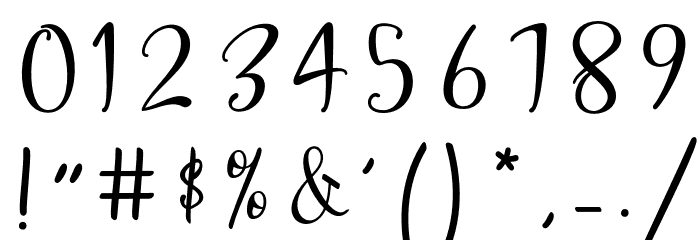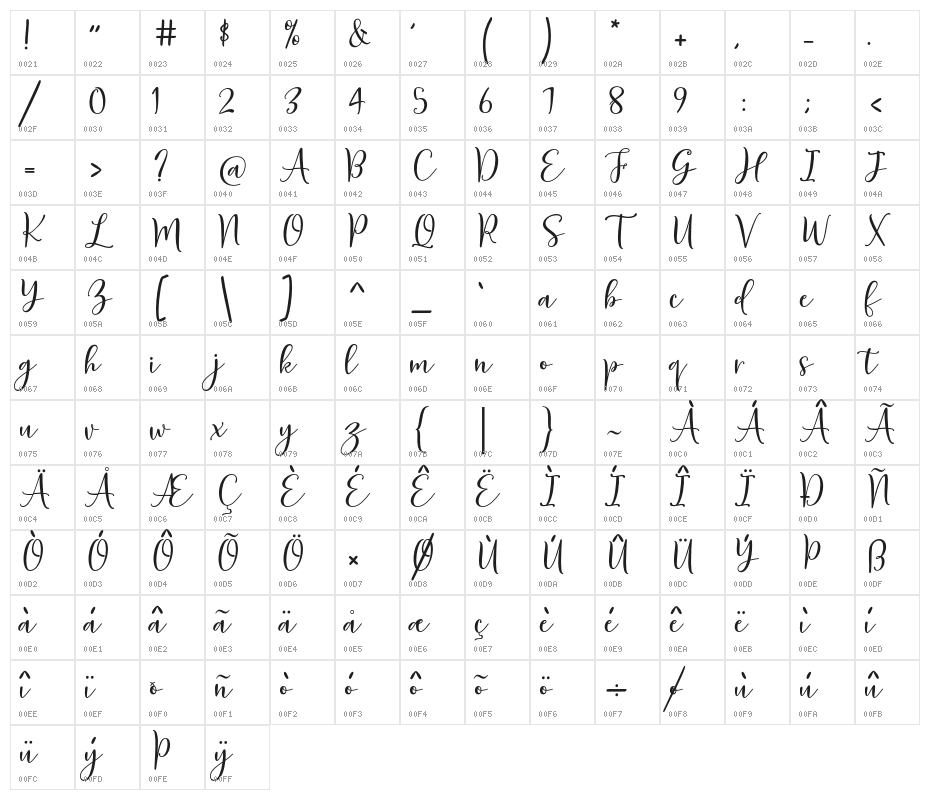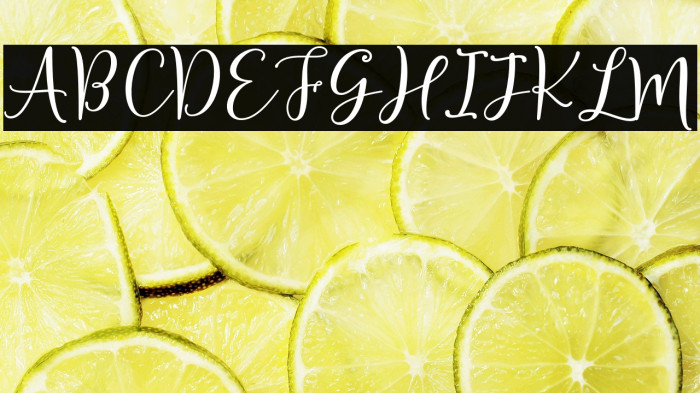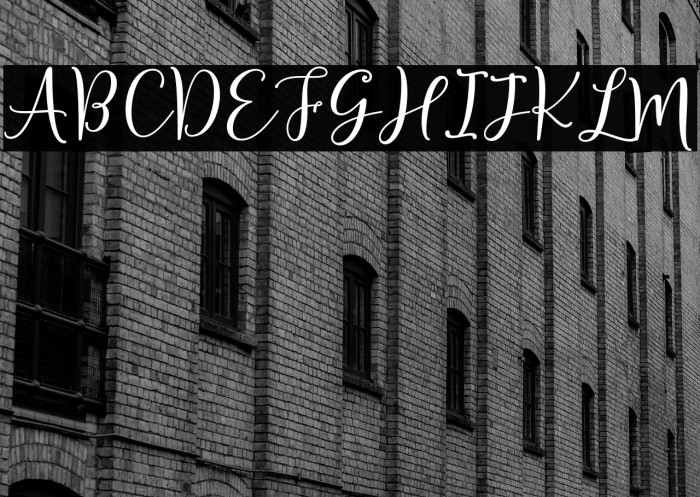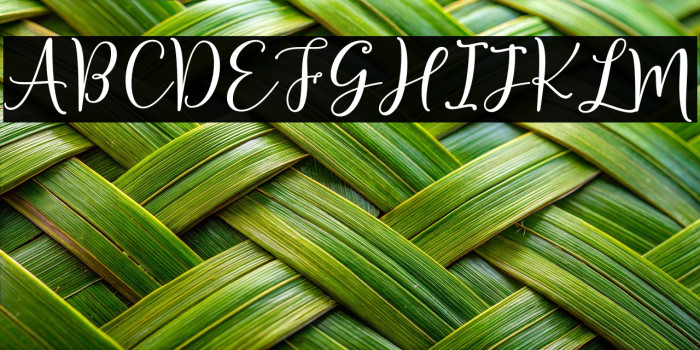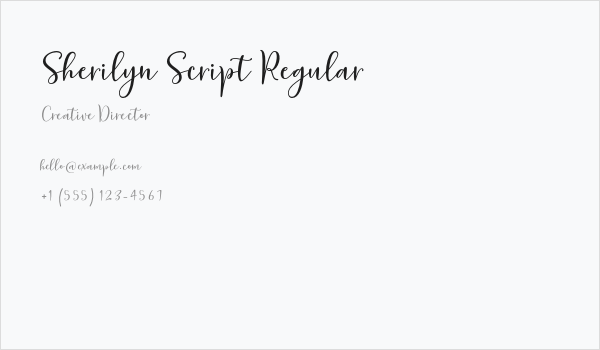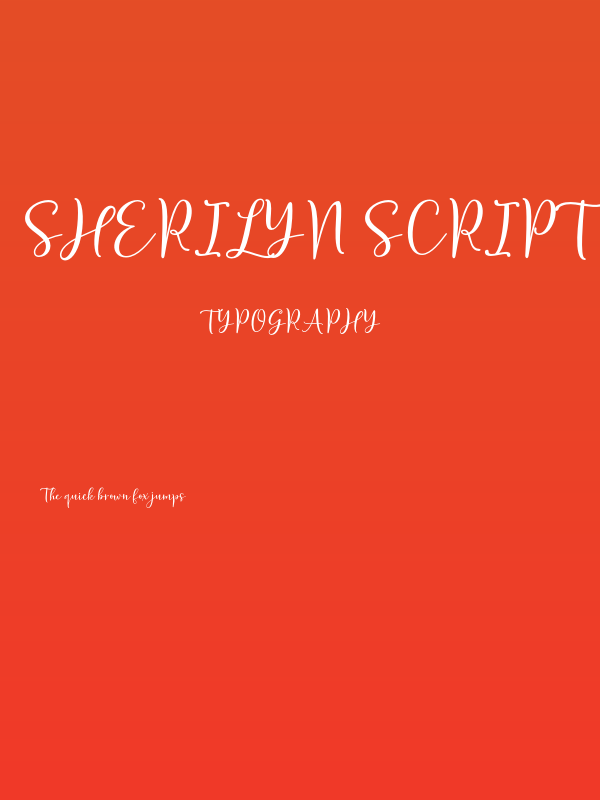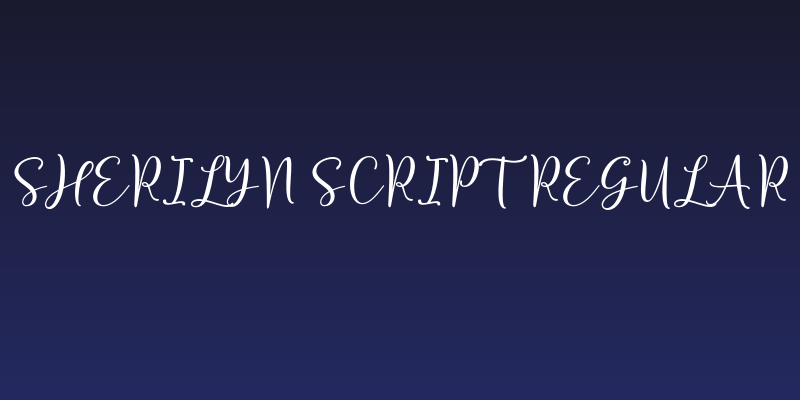
Sherilyn Script Regular Font
Sherilyn Script Regular Description
This elegant script font features fluid, cursive strokes that convey a sense of sophistication and grace. The uppercase letters are slightly more formal, with sweeping curves and loops, while the lowercase letters maintain a consistent flow with a touch of whimsy. The numerals are distinct and maintain the script style, ensuring readability. Special characters are thoughtfully designed to match the overall aesthetic, making this font versatile for various applications. The font's smooth lines and balanced proportions make it ideal for projects that require a personal touch.
| Proposed Projects | Ideal for wedding invitations, greeting cards, branding, and elegant packaging. |